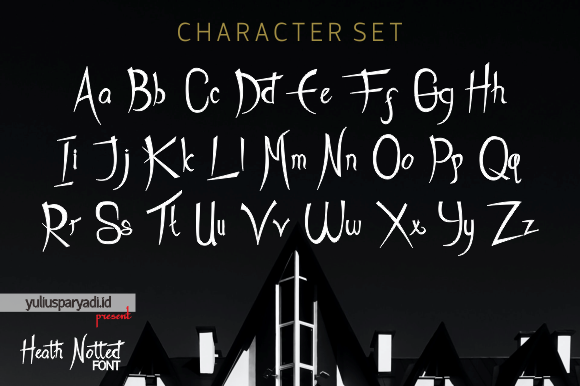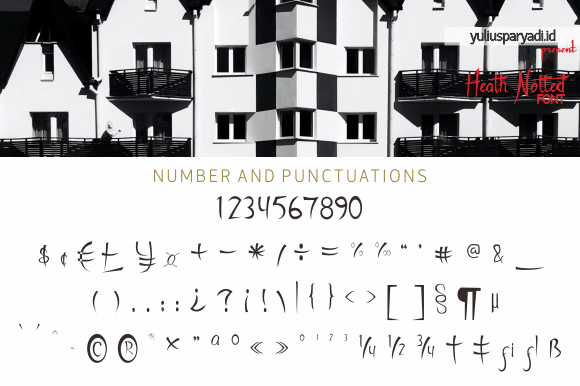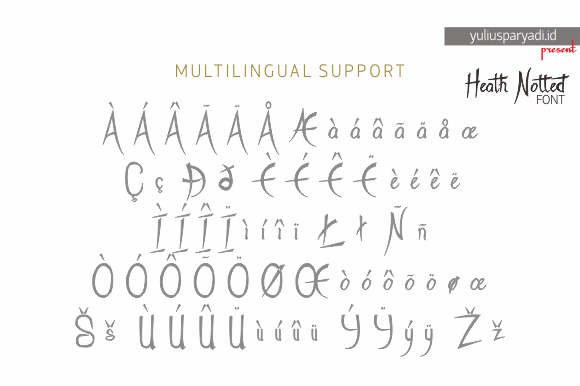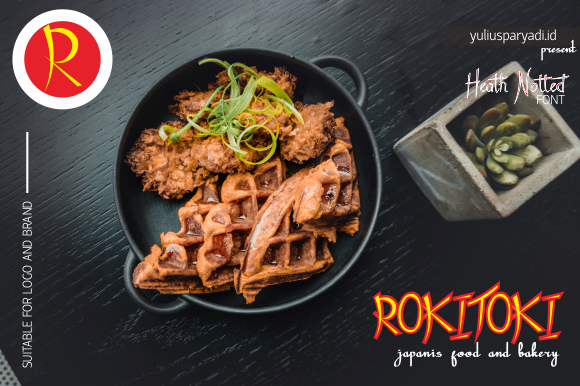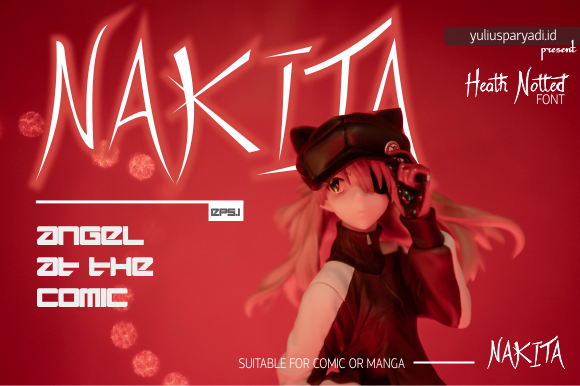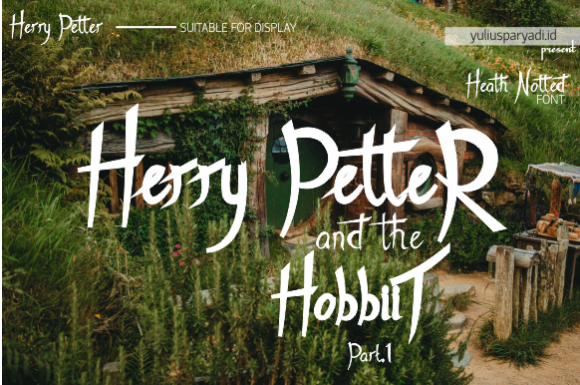
Introducing Heath Notted Font: A Lovely and Sweet Handwritten Font
Are you tired of using the same old fonts for your design projects? Look no further! Heath Notted Font is a beautiful, handwritten font that can add a touch of elegance and whimsy to any design. In this article, we’ll take a closer look at Heath Notted Font, its features, and how it can elevate your designs.
What is Heath Notted Font?
Heath Notted Font is a lovely and sweet handwritten font that has well-balanced characters, making it suitable for a wide range of projects. Its unique and charming design makes it perfect for designers and crafters looking to add a personal touch to their work.
Key Features of Heath Notted Font
- Handwritten Design: Heath Notted Font has a beautiful, handwritten design that adds a touch of warmth and personality to any project.
- Well-Balanced Characters: The font has well-balanced characters that ensure it looks great in any context, from headings to body text.
- Versatile: Heath Notted Font can be used for a wide range of projects, from branding and advertising to crafting and DIY projects.
How to Use Heath Notted Font in Your Designs
Heath Notted Font is easy to use and can be incorporated into your designs in a variety of ways. Here are a few ideas to get you started:
- Branding and Advertising: Use Heath Notted Font to create unique and eye-catching logos, business cards, and advertisements.
- Crafting and DIY Projects: Add a personal touch to your crafting and DIY projects, such as handmade cards, gift tags, and scrapbooking pages.
- Digital Designs: Use Heath Notted Font in your digital designs, such as social media graphics, blog posts, and website headers.
Benefits of Using Heath Notted Font
There are many benefits to using Heath Notted Font in your designs. Here are a few:
- Unique and Eye-Catching: Heath Notted Font is a unique and eye-catching font that can help your designs stand out from the crowd.
- Easy to Read: The font is easy to read, making it perfect for body text and other applications where readability is important.
- Versatile: Heath Notted Font can be used for a wide range of projects, making it a great addition to any designer’s toolkit.
Tips for Getting the Most Out of Heath Notted Font
Here are a few tips for getting the most out of Heath Notted Font:
- Pair with Other Fonts: Heath Notted Font pairs well with other fonts, so don’t be afraid to try pairing it with other fonts to create a unique look.
- Use it Consistently: Use Heath Notted Font consistently throughout your design to create a cohesive look.
Heath Notted Font is a beautiful, handwritten font that can add a touch of elegance and whimsy to any design. With its well-balanced characters, versatility, and ease of use, it’s perfect for designers and crafters looking to add a personal touch to their work. Whether you’re working on a branding project, crafting and DIY project, or digital design, Heath Notted Font is a great choice. So why not give it a try and see how it can elevate your designs?
- What is Heath Notted Font?: Heath Notted Font is a lovely and sweet handwritten font with well-balanced characters.